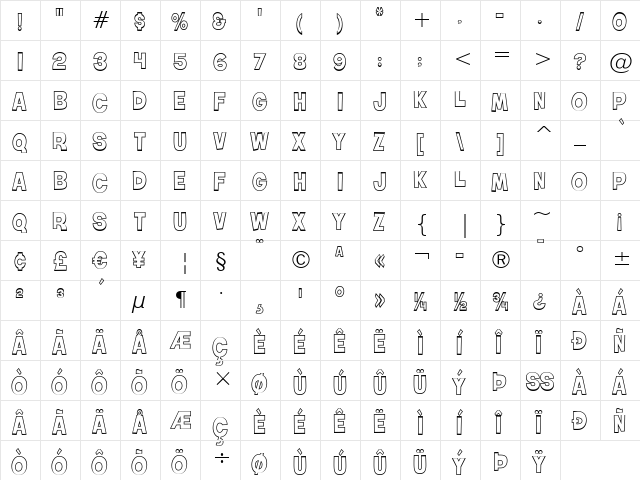
Roller World BTN Bold Out Regular Font Preview
Roller World BTN Bold Out Regular
Roller World BTN Bold Out Regular Font Details
Design Context for Roller World BTN Bold Out Typeface
Roller World BTN Bold Out takes a measured approach to typography — its balanced proportions and neutral character make it a reliable workhorse for both digital and print work. The heavy weight commands attention and anchors typographic hierarchies.